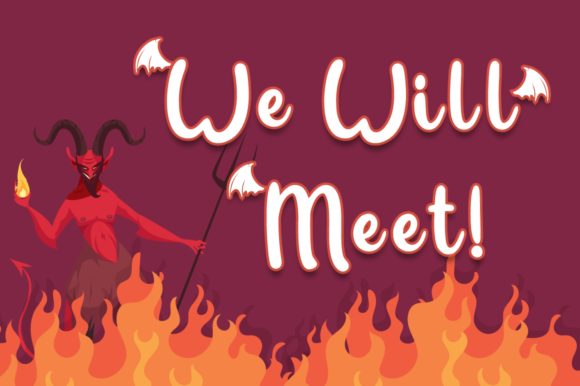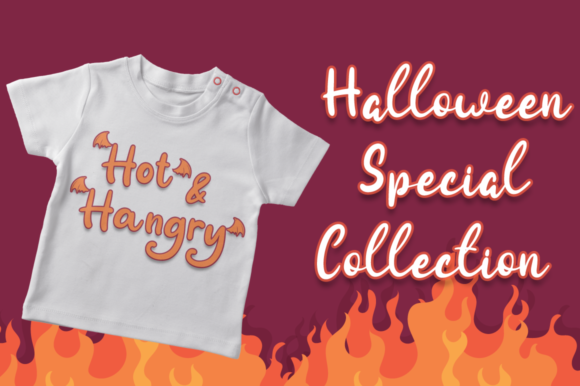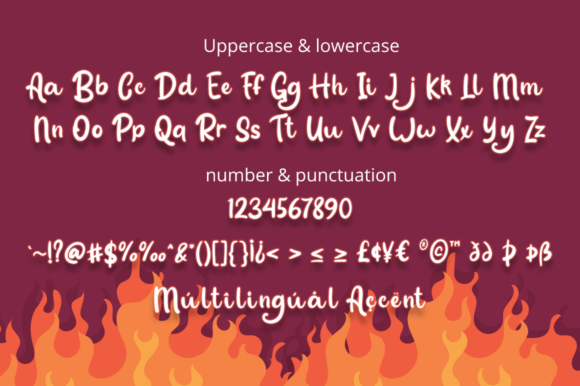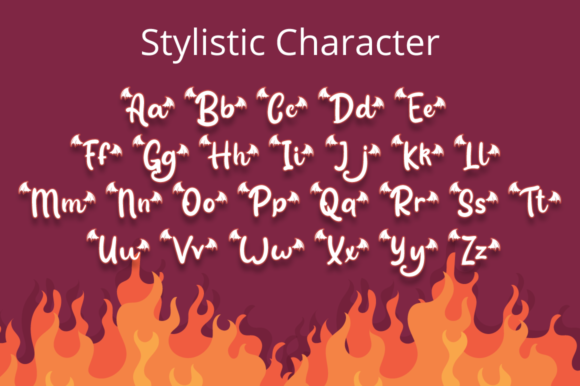
Introduction to Bat Devil Font
Bat Devil is a cute and uniquely designed display font.
Whether you use it for cartoon related designs, children games or just any creation that requires a lovely touch, this font will be an amazing choice .
Key Features of Bat Devil Font